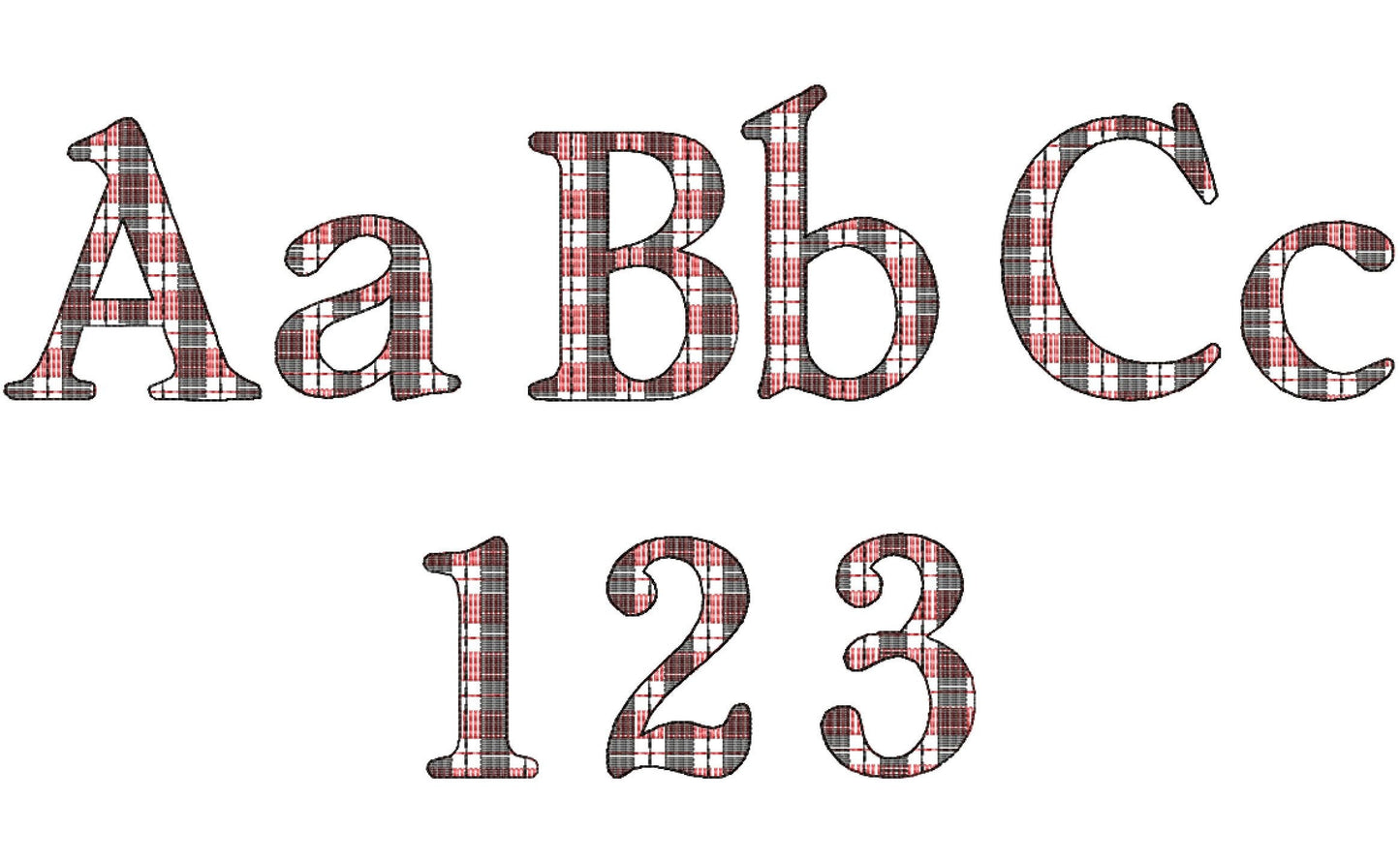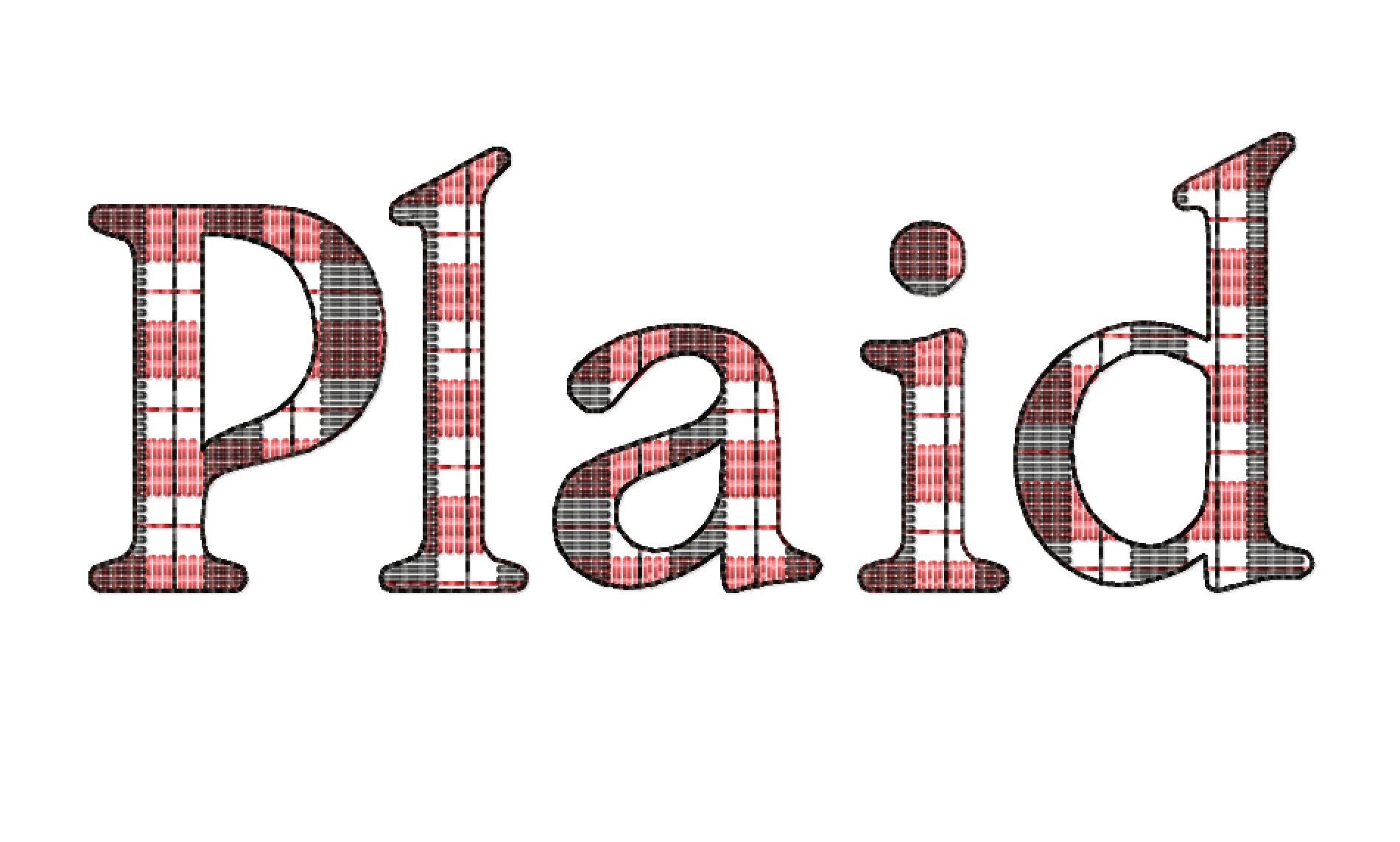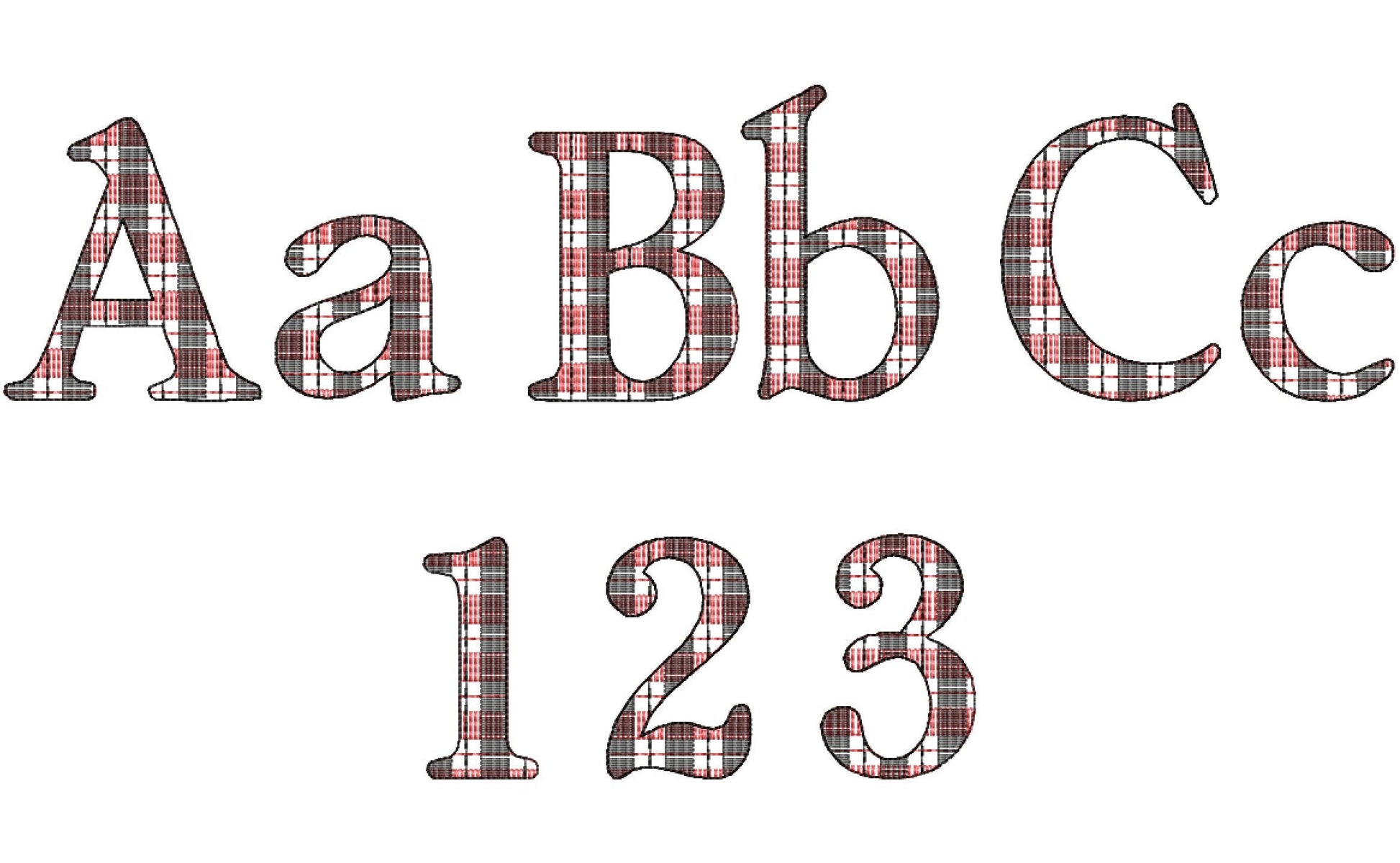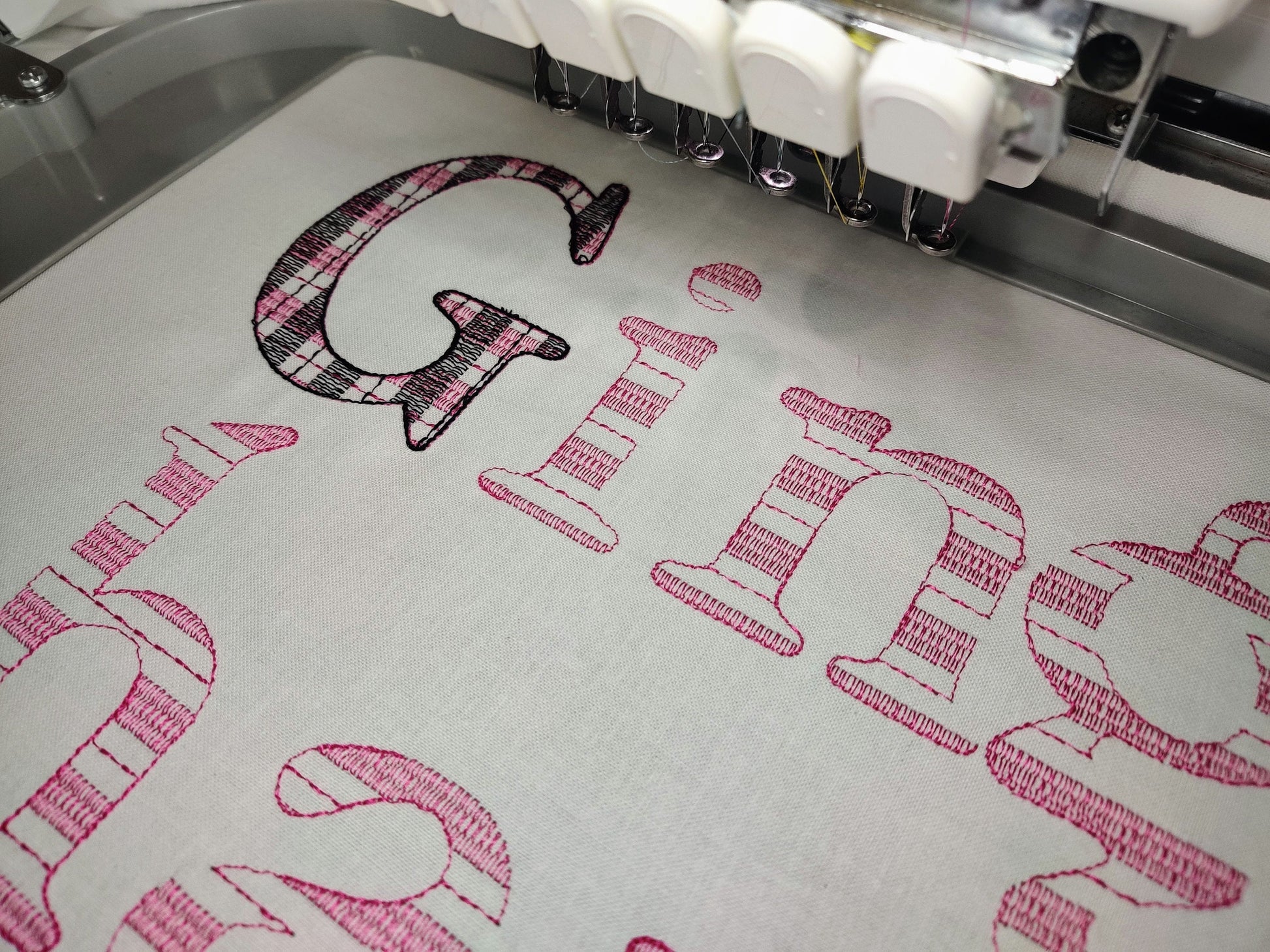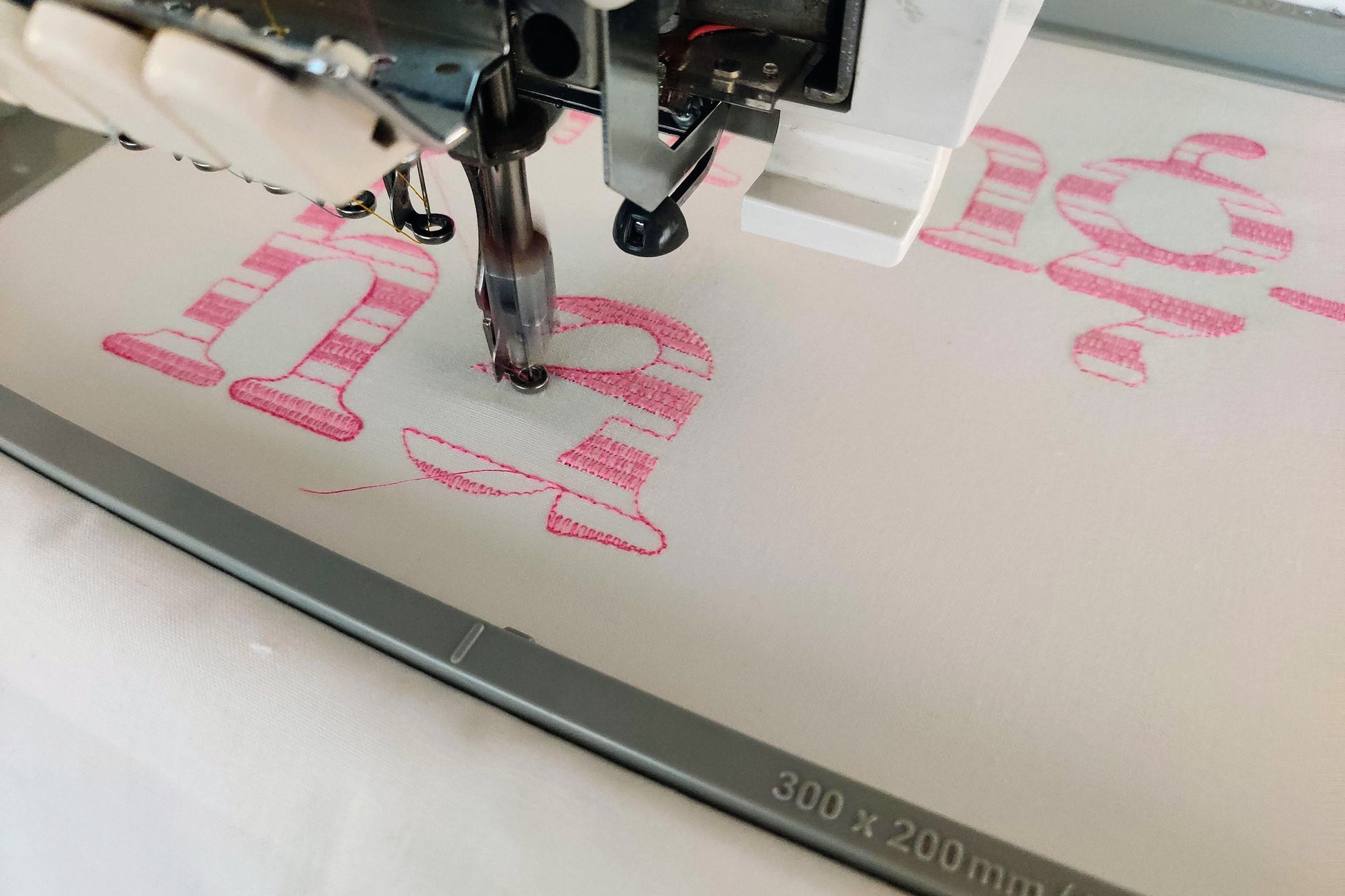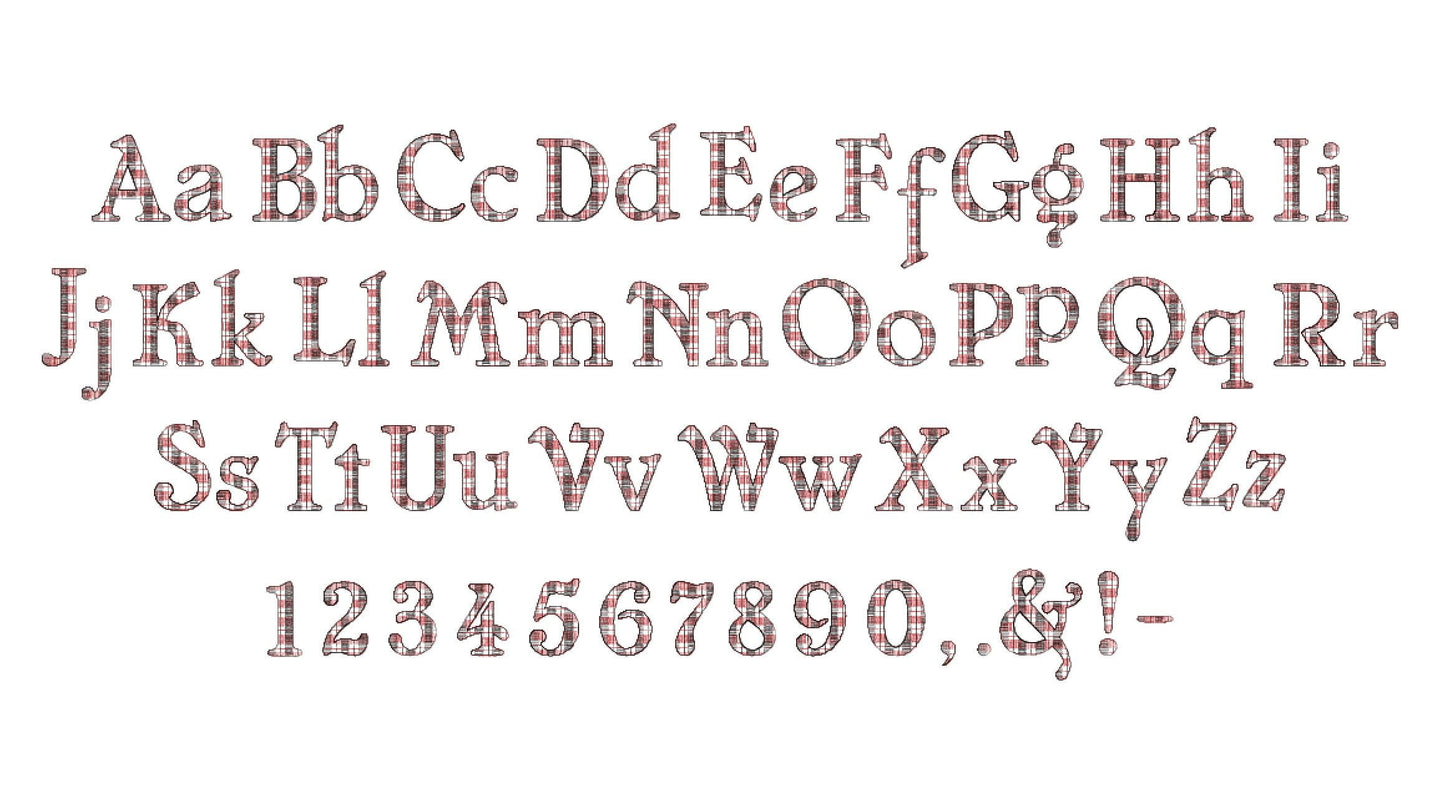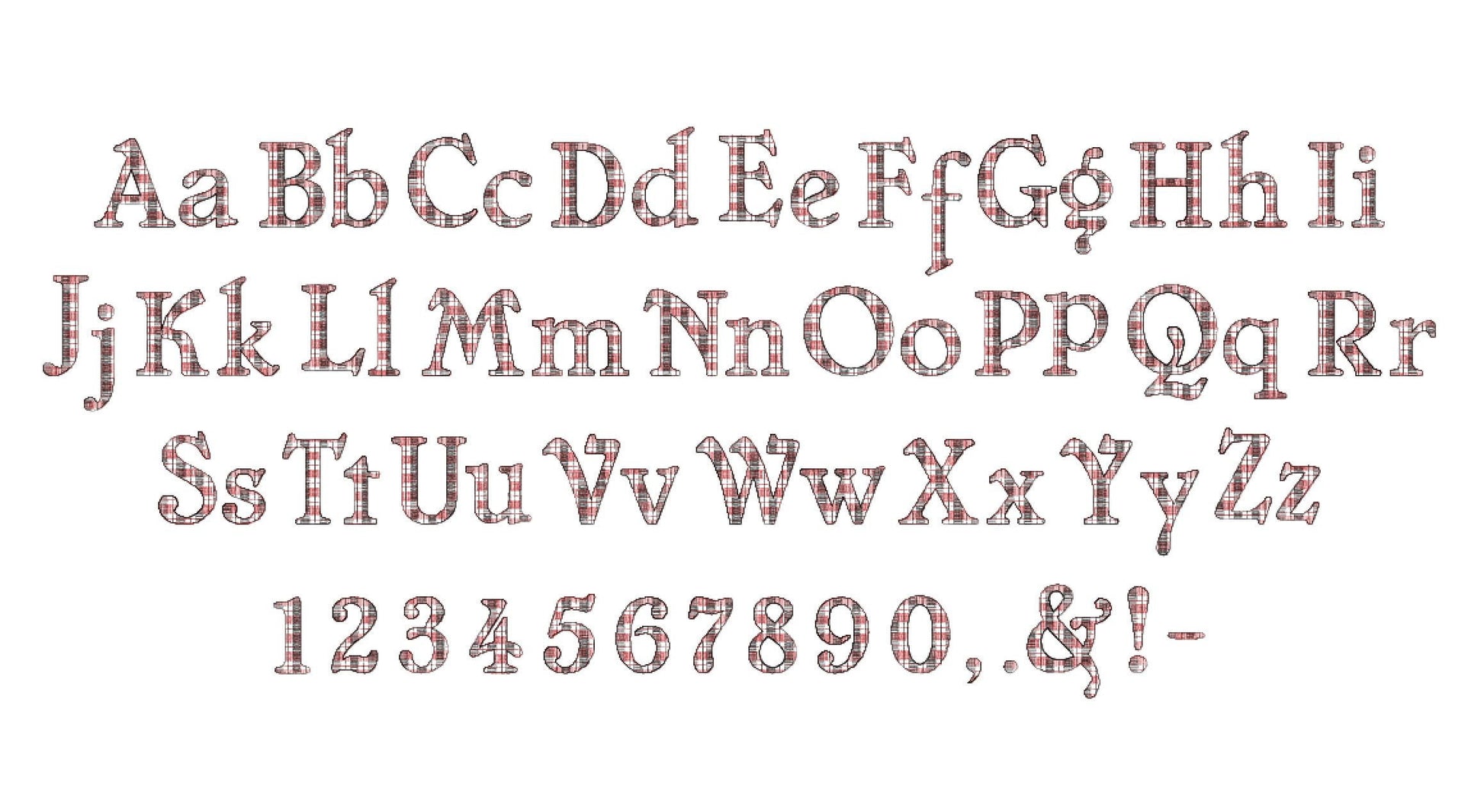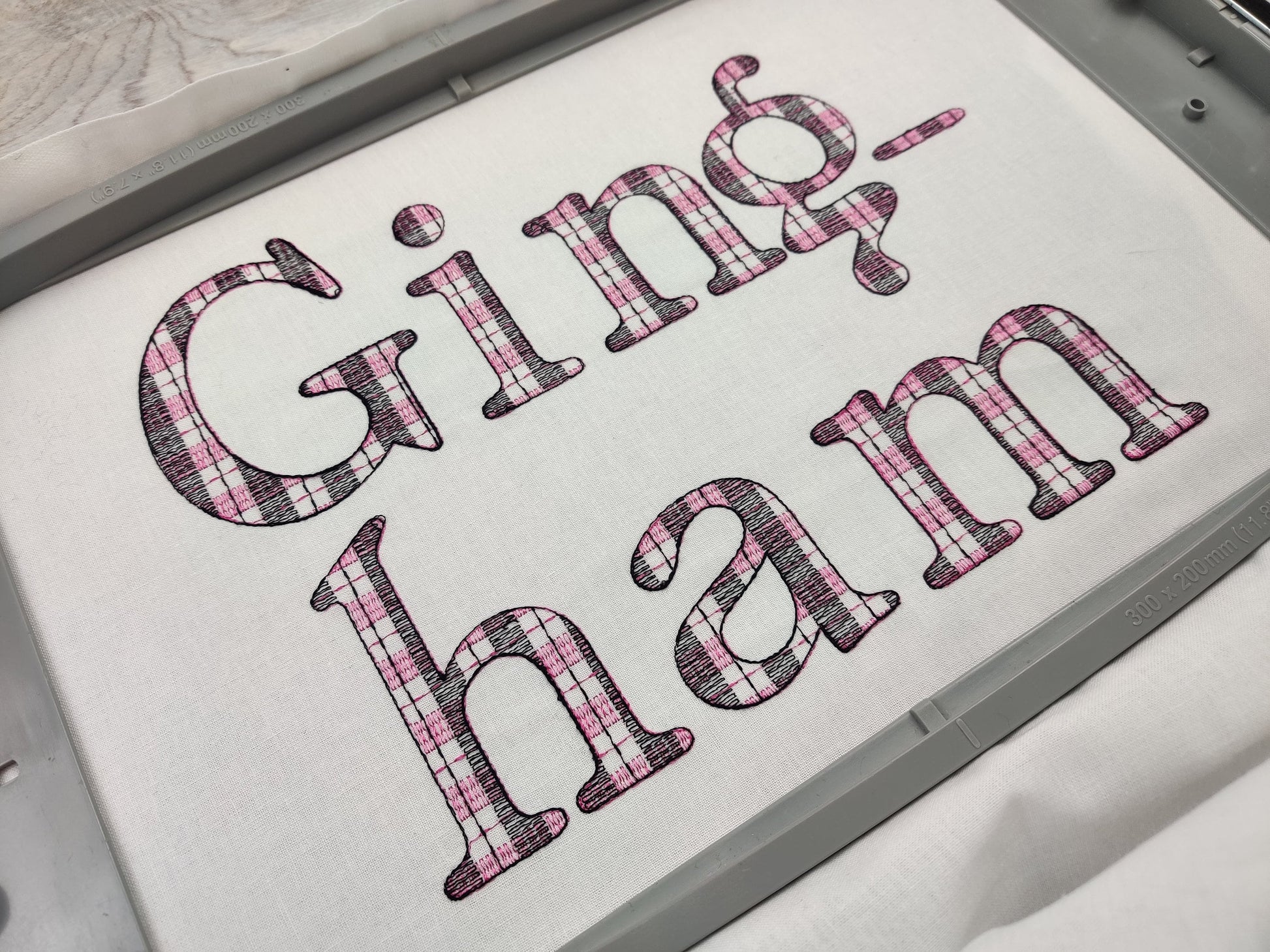
Or click to open the linkA buffalo plaid font with a light sketch outline. Cozy for fall and Christmas names on pillows, stockings and shirts.
A quick stitch: the gingham lines are part of the embroidery and the fabric shows through. Uppercase and lowercase letters, numbers and punctuation in five sizes: 2, 2.5, 3, 4 and 5 inches.